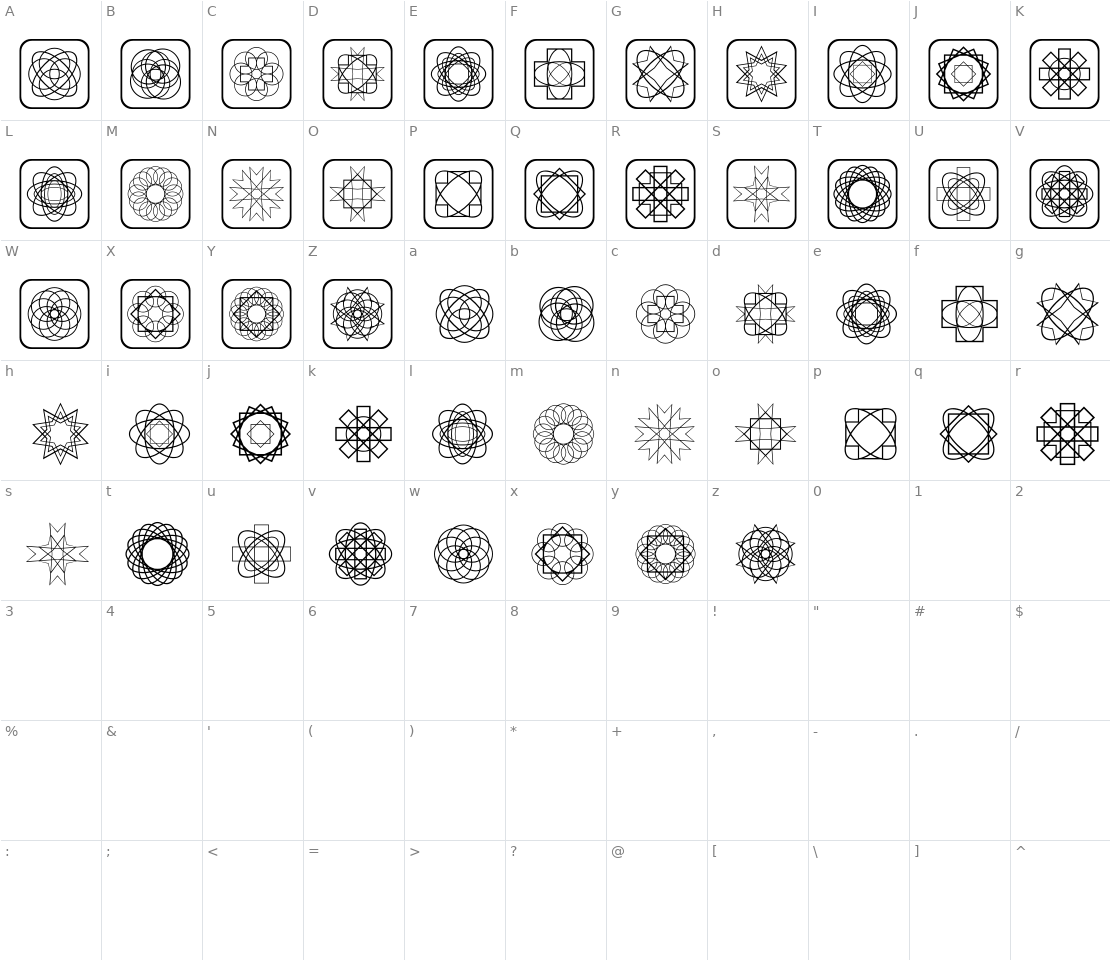
Symmetric Things
Symmetric Things is a decorative shapes font from Fonts & Things built entirely from intricate, spirograph-like geometric patterns. Each glyph is an abstract symmetrical design made of fine linework, closer to mathematical art than traditional letterforms. Useful as ornamental elements, dividers, or background textures in designs that call for precise, hypnotic visual detail.